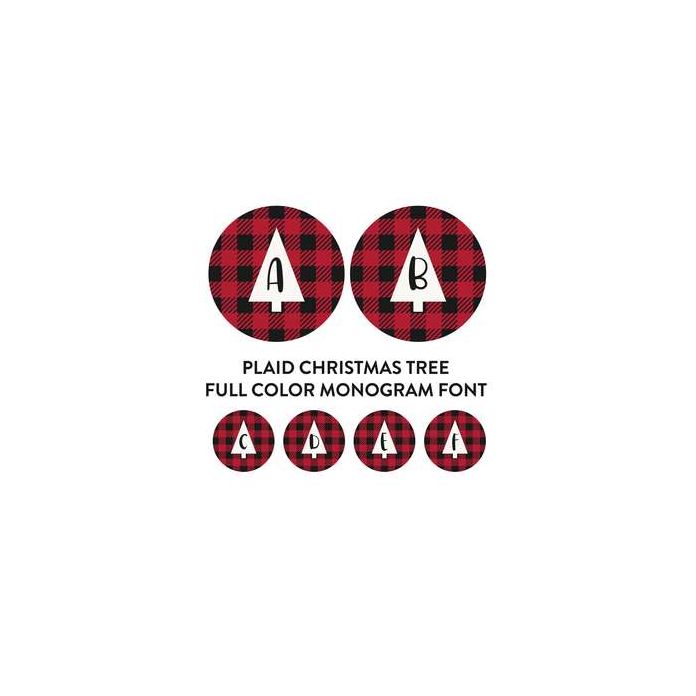
plaid christmas tree full color monogram font
This full color otf monogram font comes with uppercase letters A-Z. Number 1 and 2 allow you to access the cut out christmas tree version.